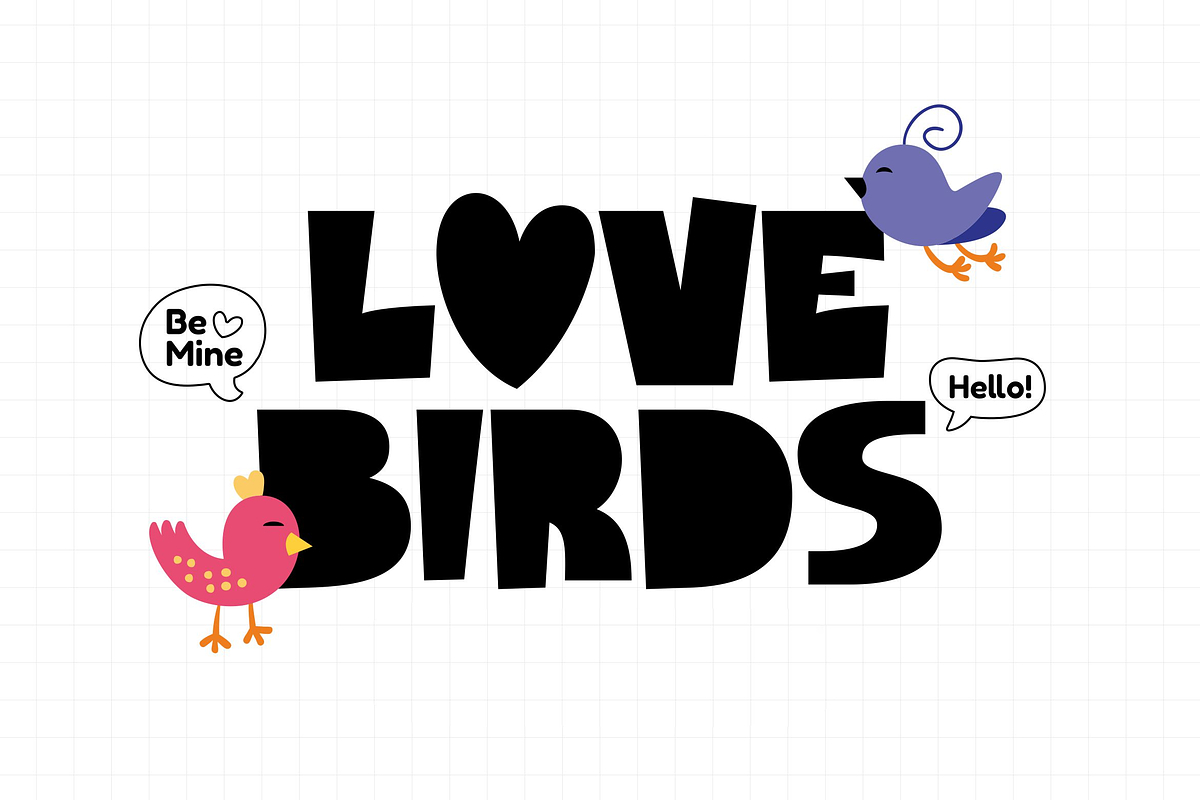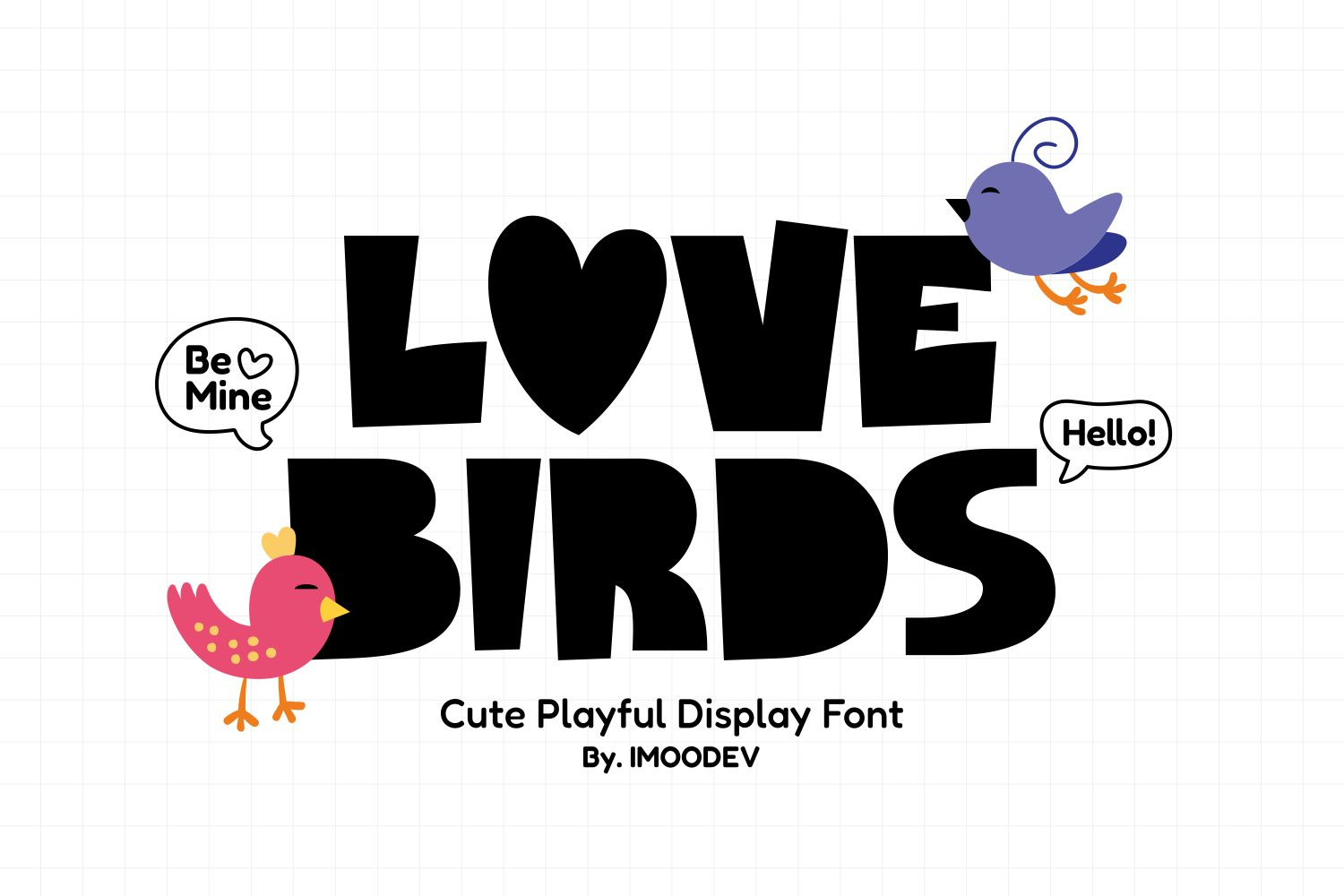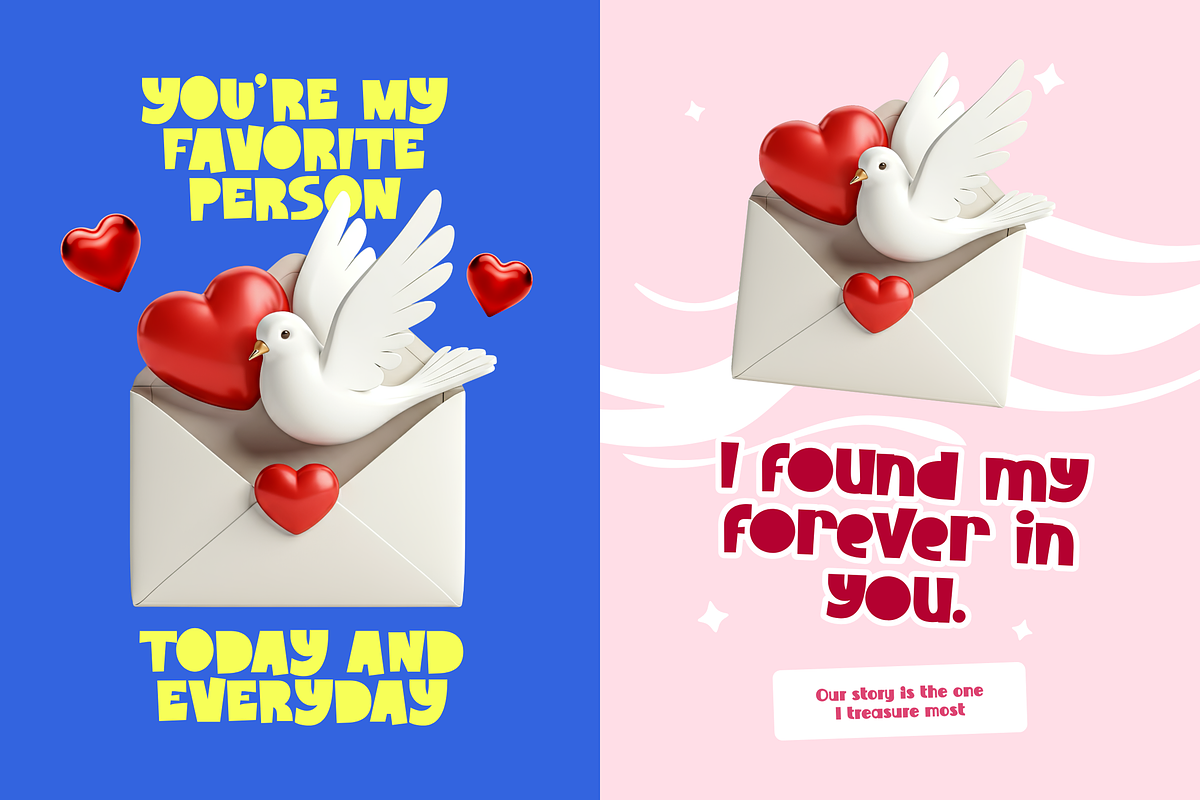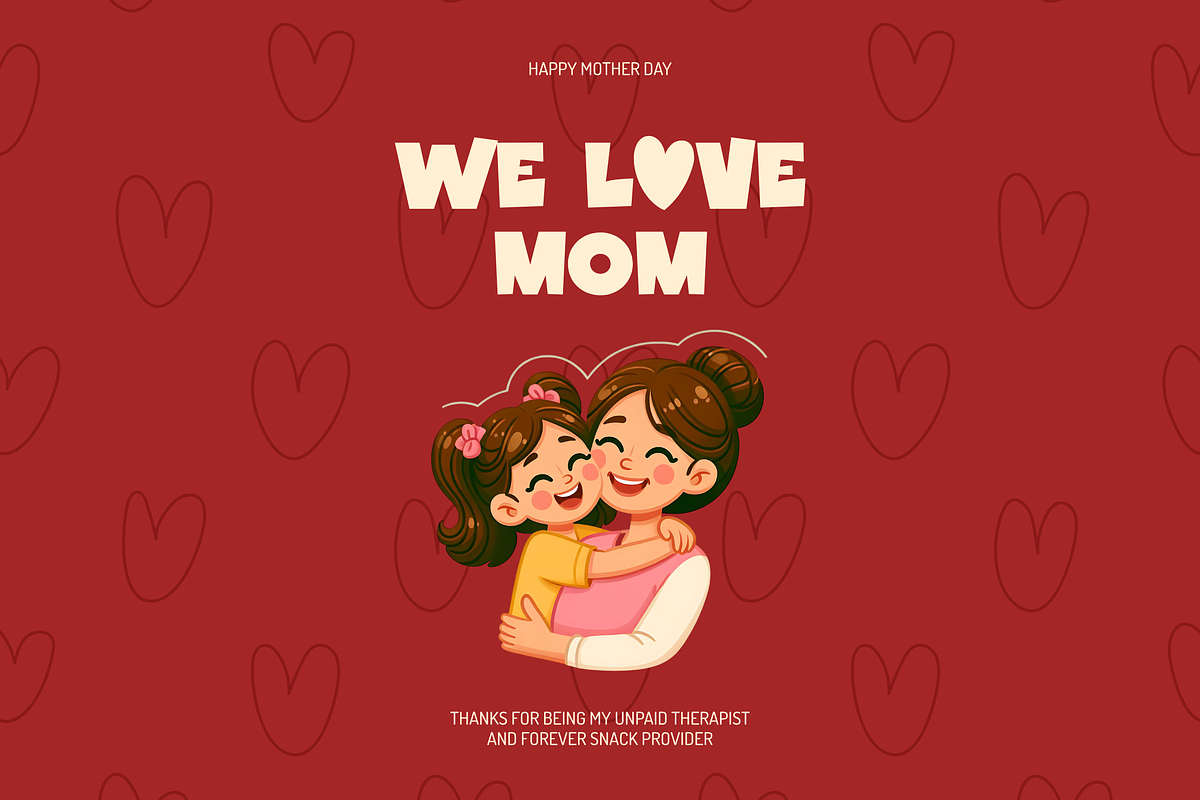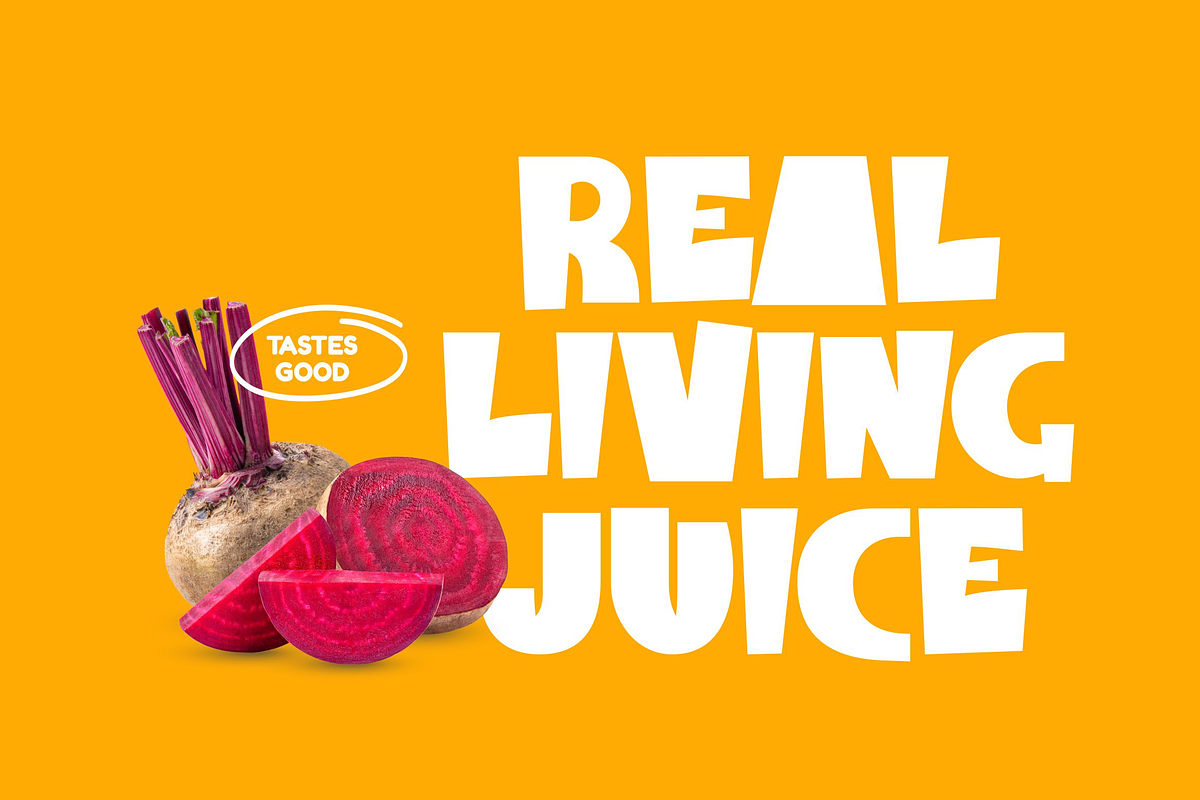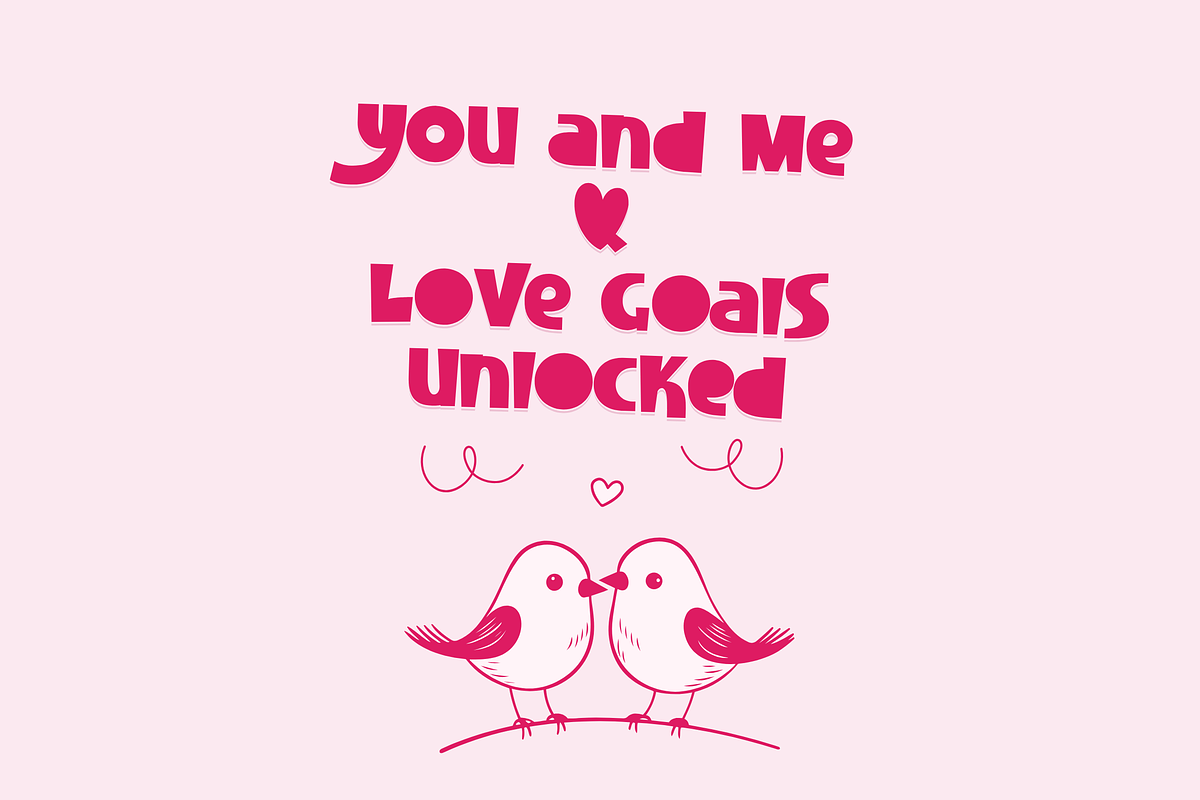
Love Birds - Cute Playful Font
Love Birds is a cute playful font full of personality and charm. Its unique letterforms, with a hand cut, collage inspired aesthetic, are perfect for playful designs. A heart motif appears in the set so you can swap it in as a character or accent, ideal for kids projects, classroom printables, birthday invitations, father's day quotes, stickers, mugs, book covers, social media posts, and any project that needs instant cheer.
Paired with love filled symbols and lively punctuation, Love Birds is ready to add a little joy to your creative work.
Uppercase and Lowecase Characters.
PUA Encoded Characters.
Numerals and Punctuations.
Alternates and Ligatures.
Multilingual Support.